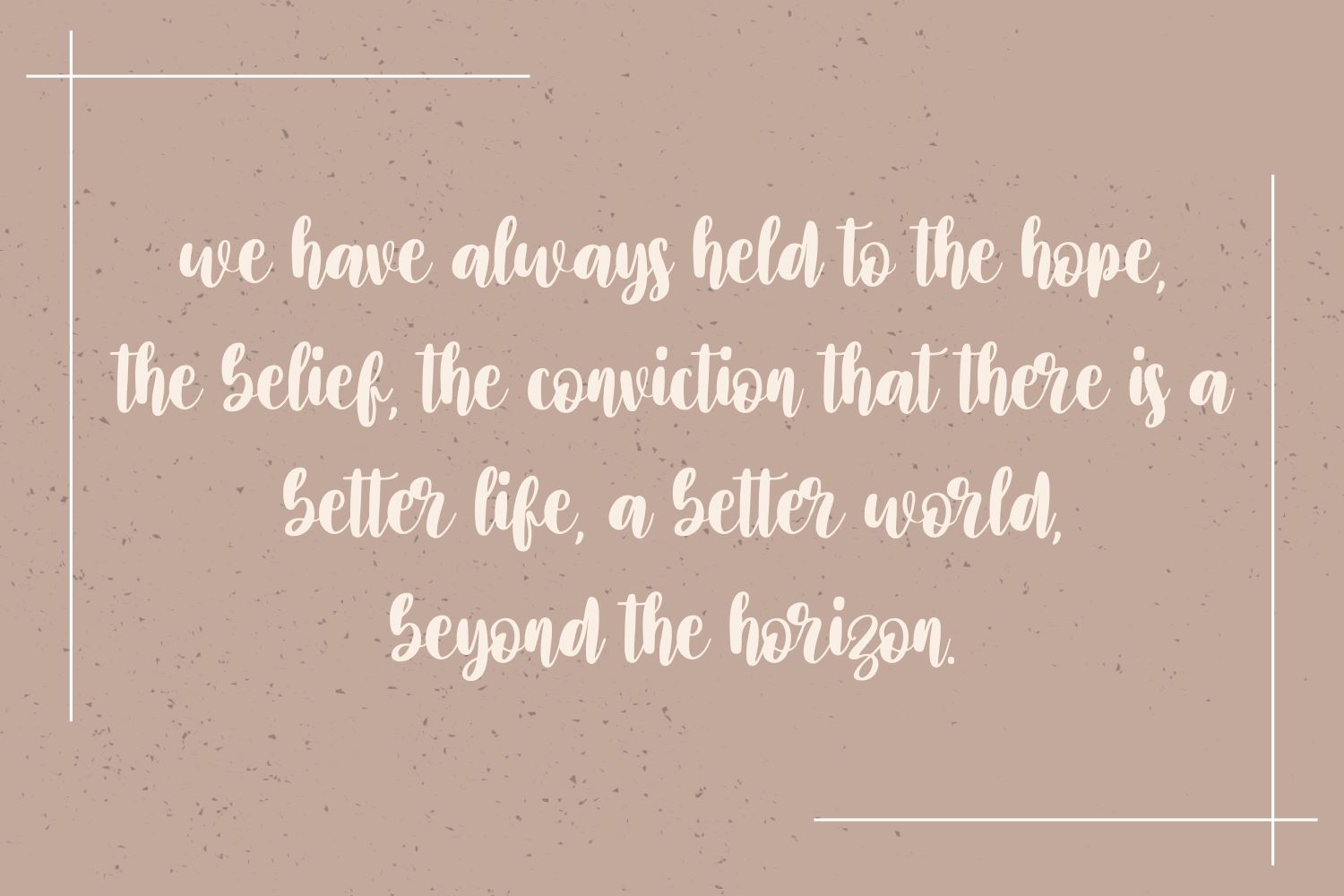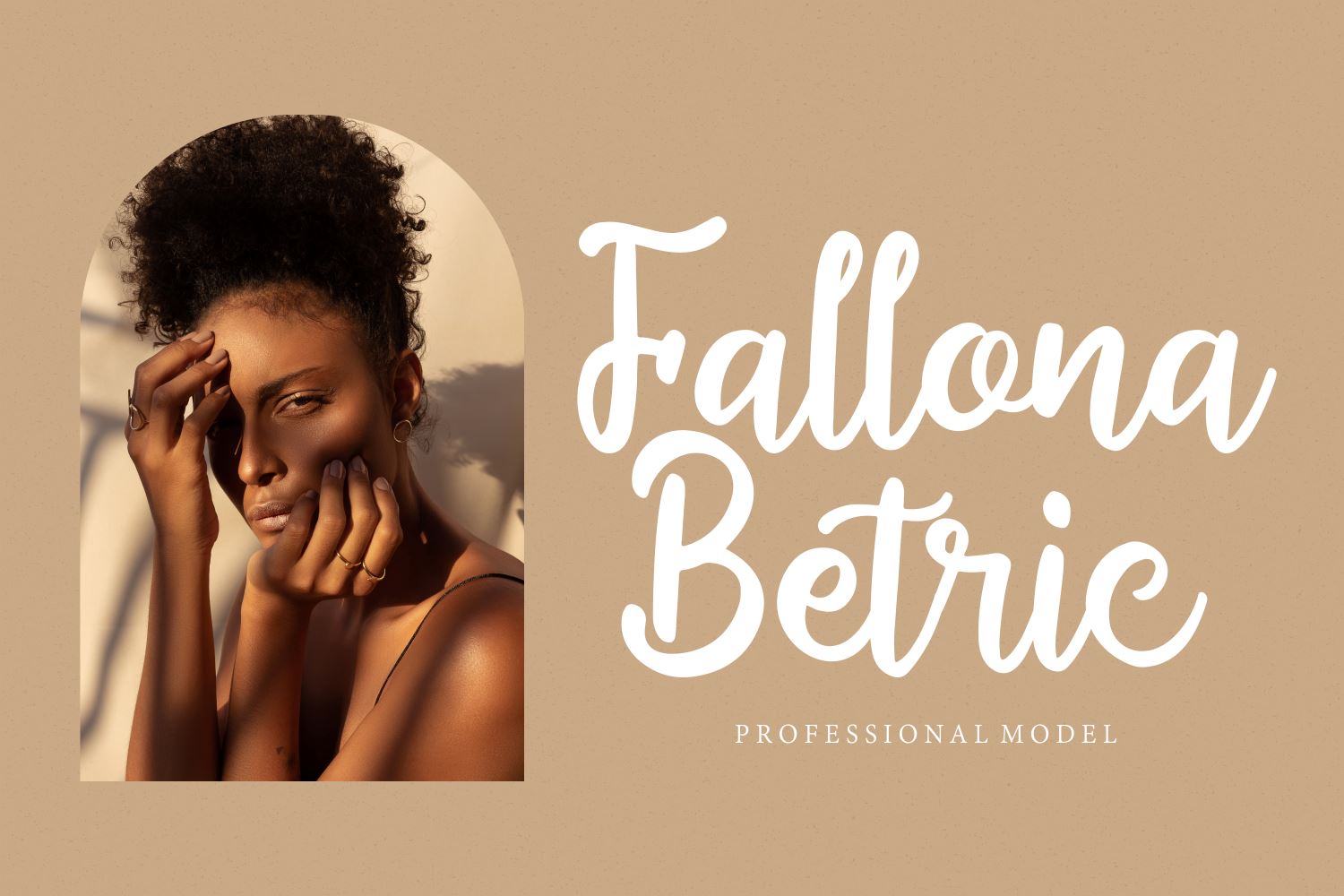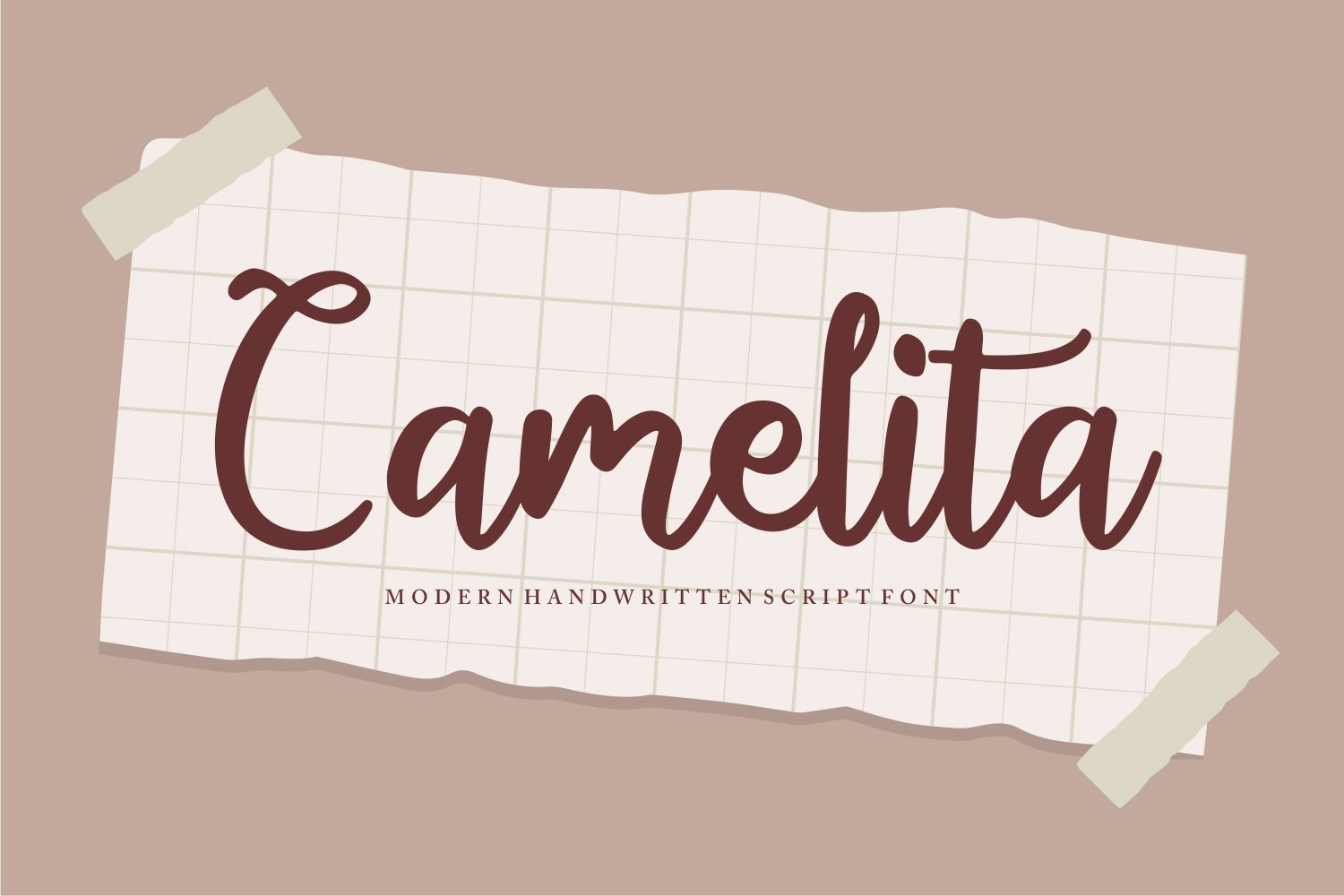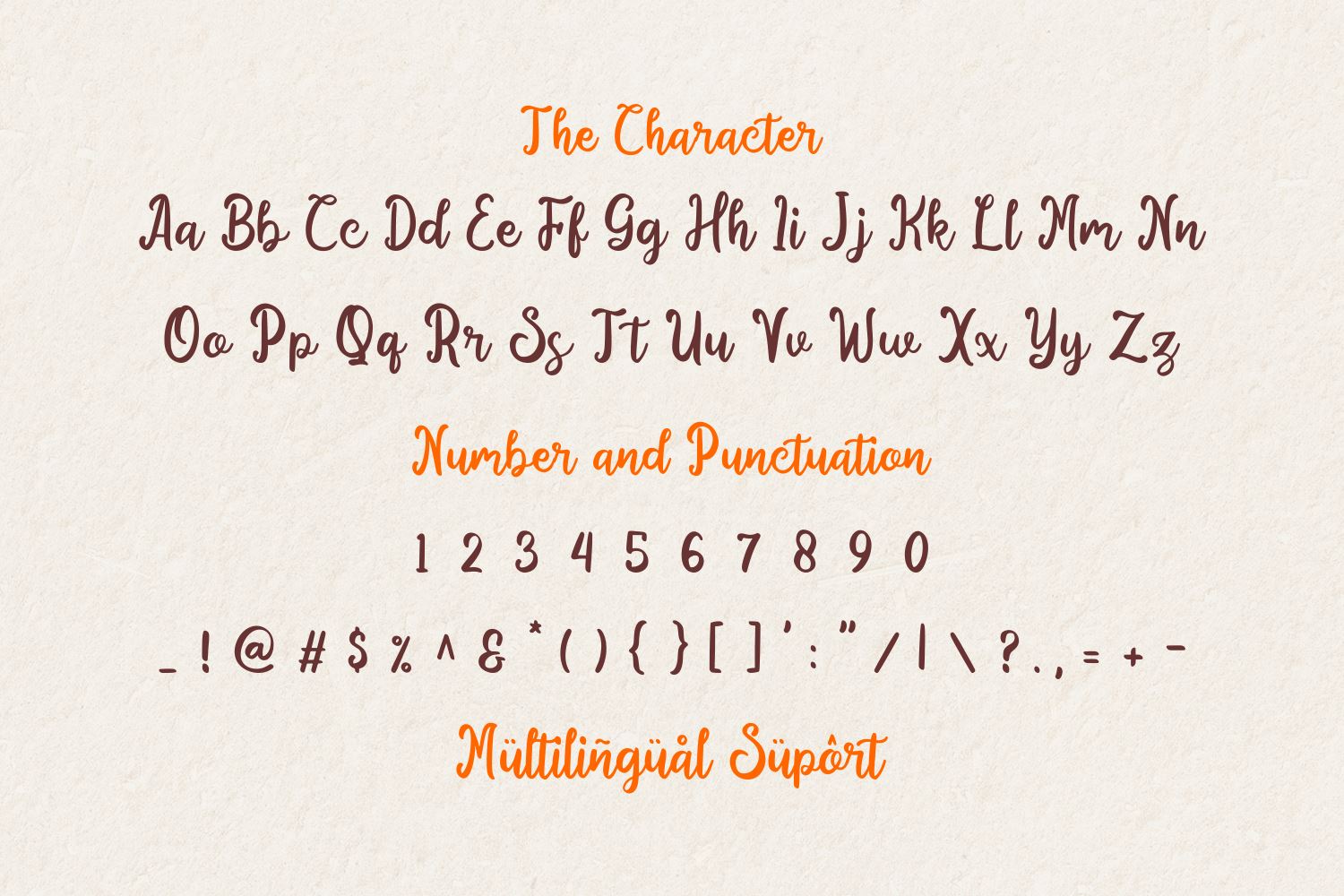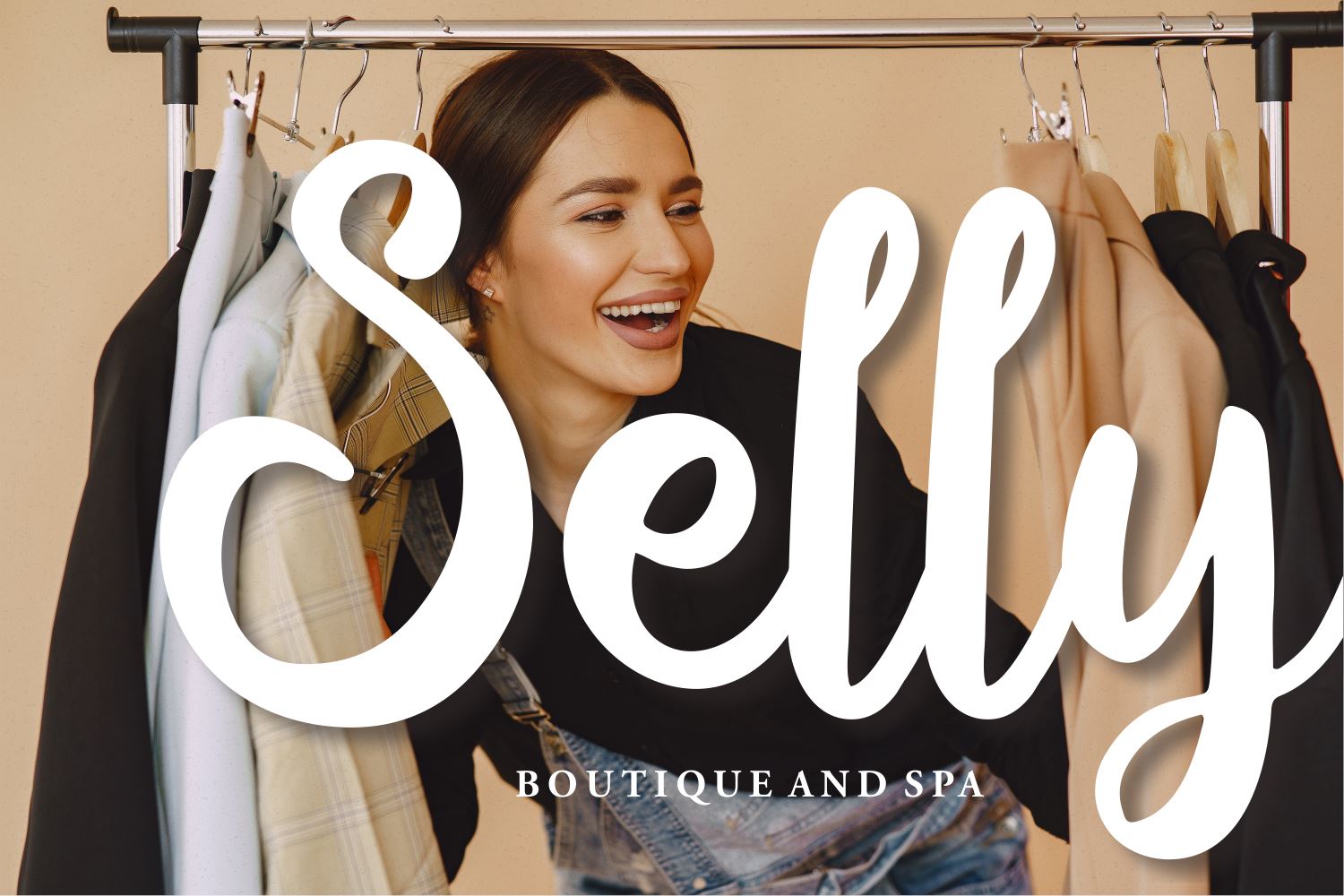
Camelita
About Camelita
Introducing Camelita Font by Forberas Club Camelita is a Modern Handwritten Font. Camelita is perfect for book cover, product packaging, branding project, megazine, social media, kids book fonts, or just used to express words above the background. This font includes TTF and OTF, This font also multilingual support.